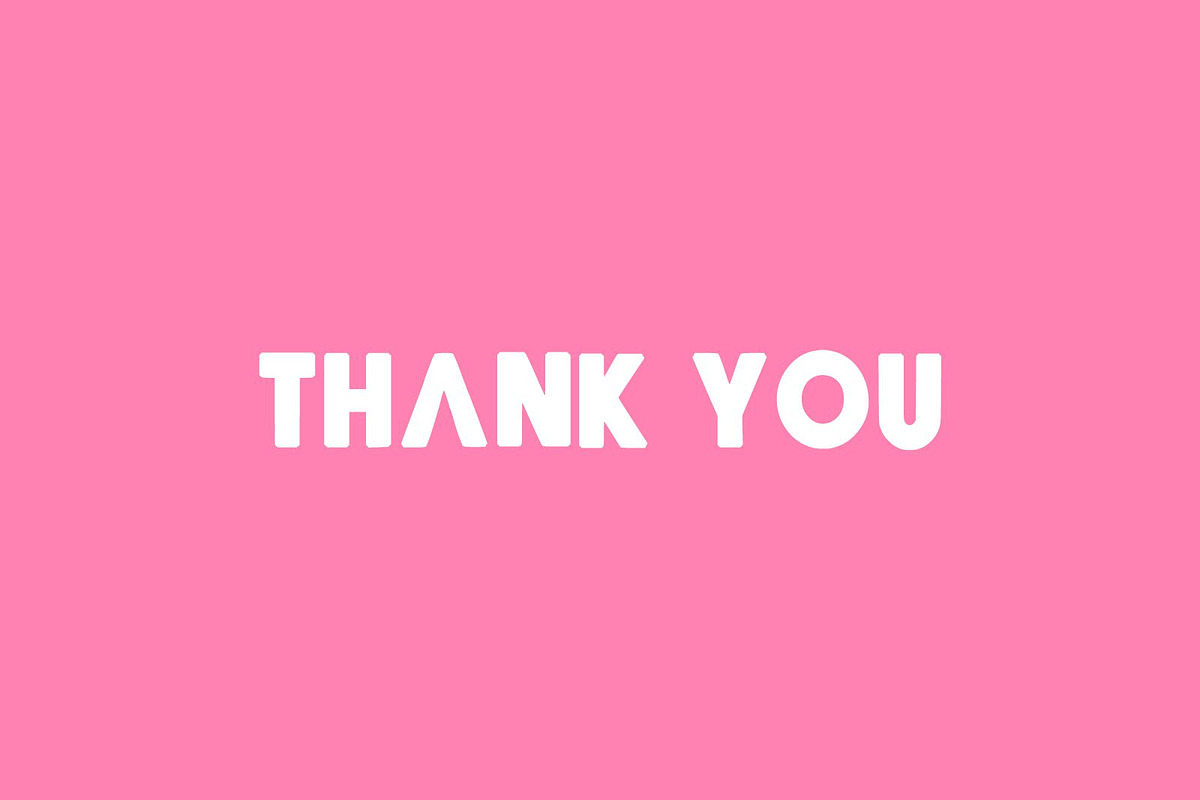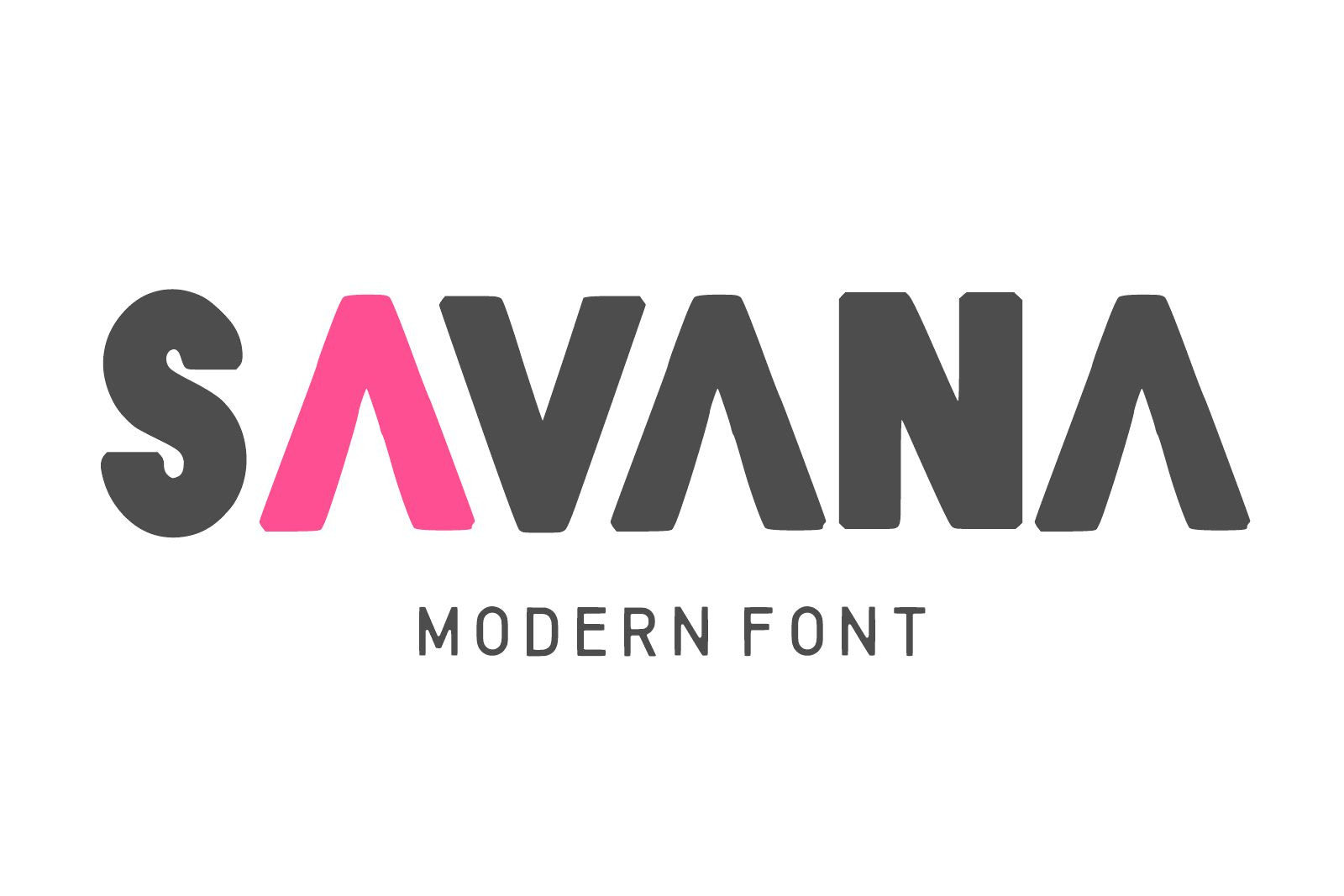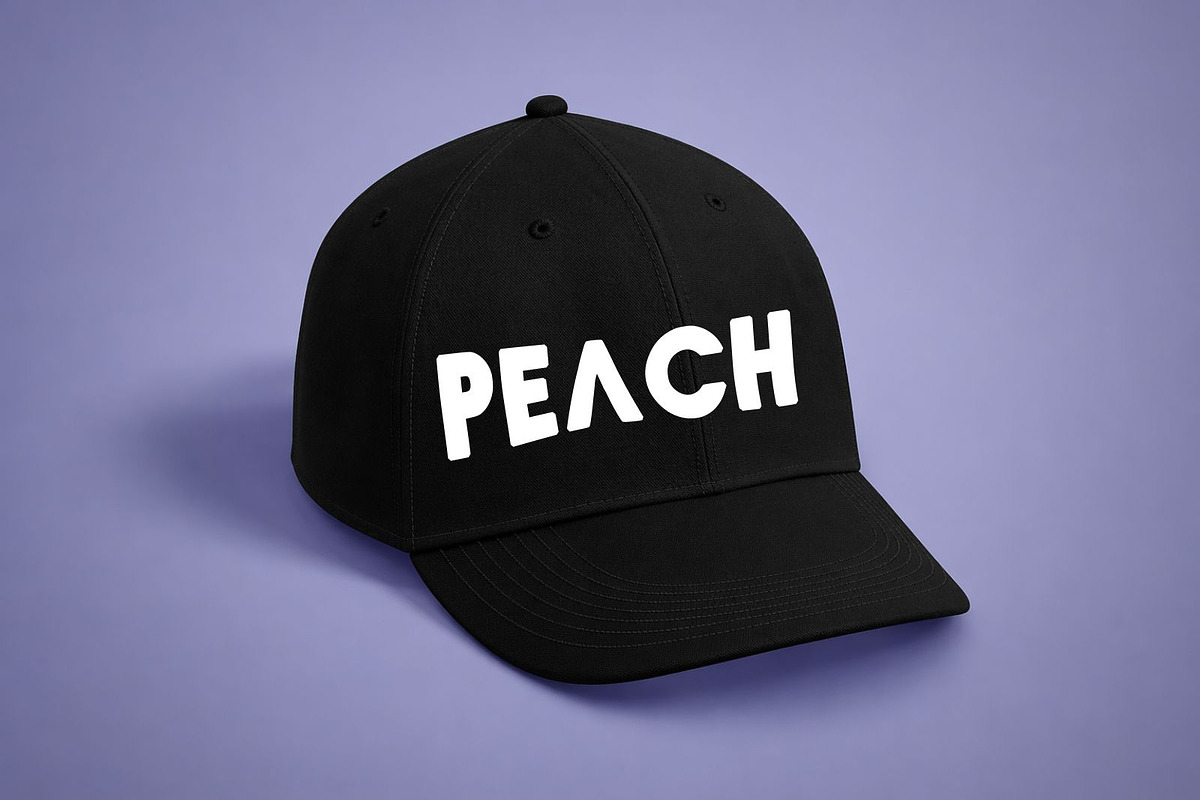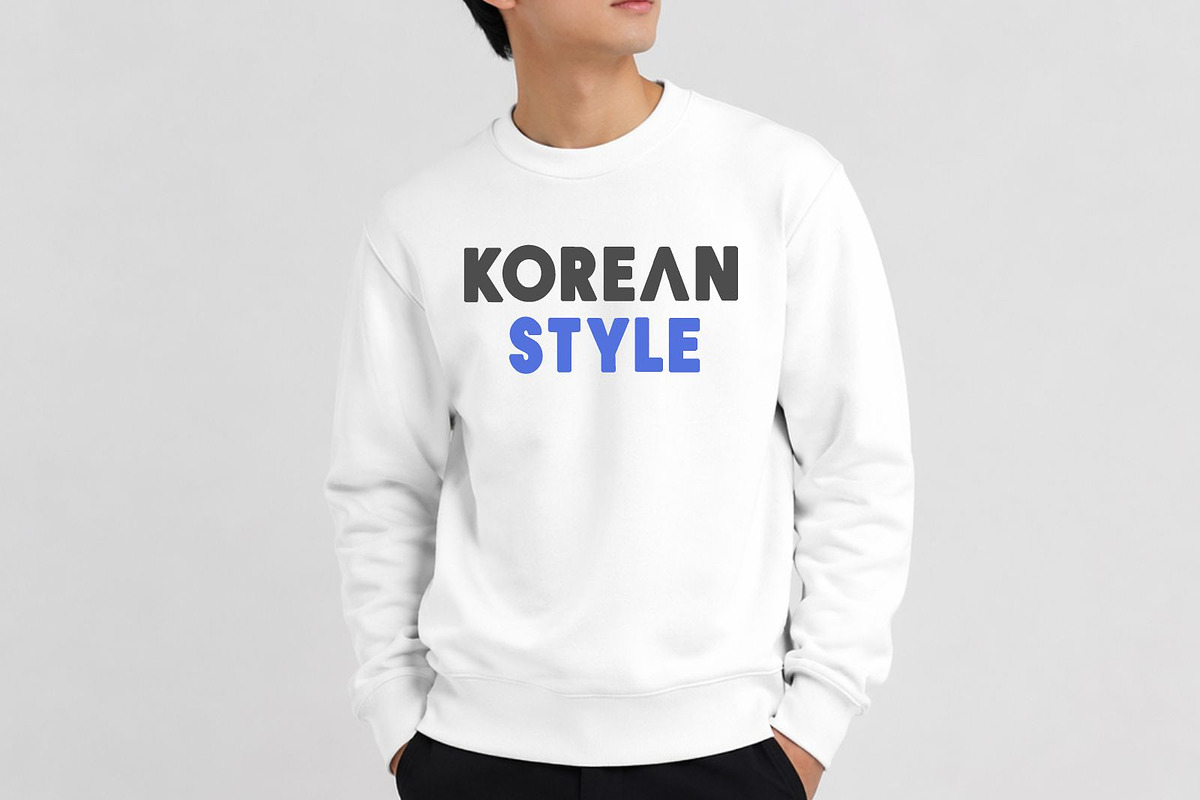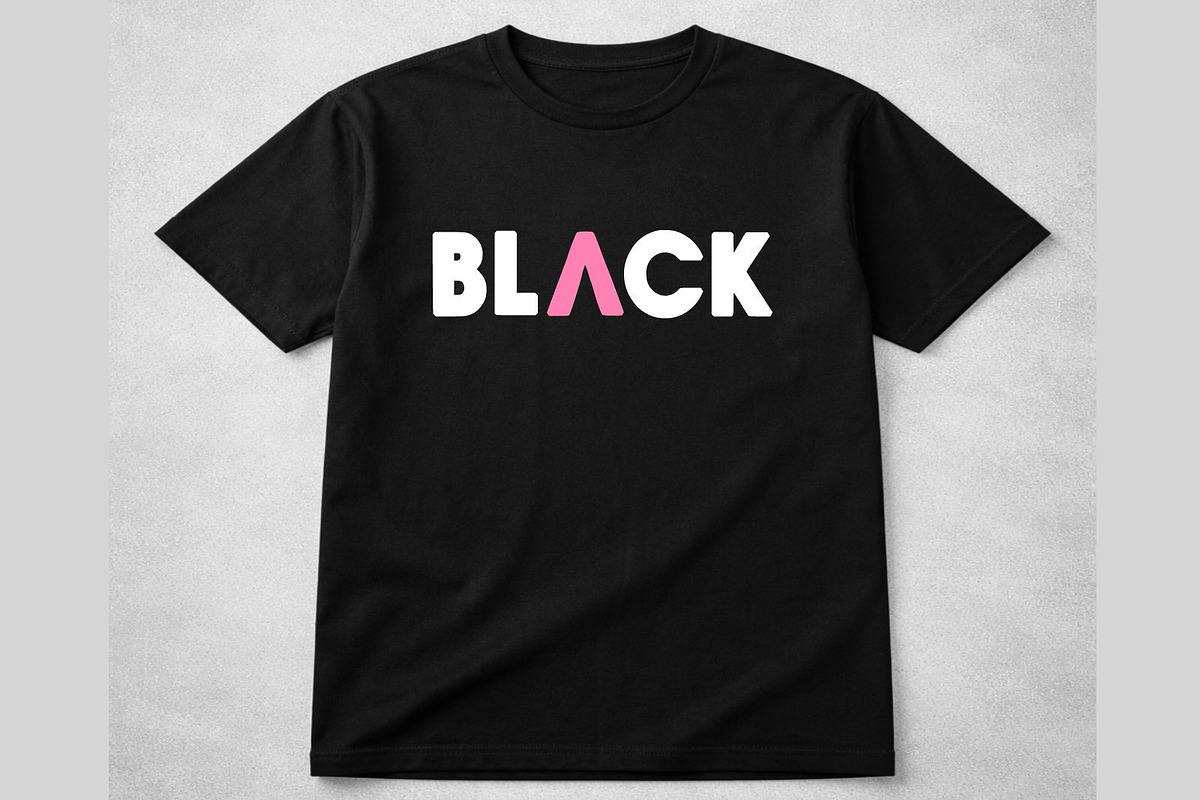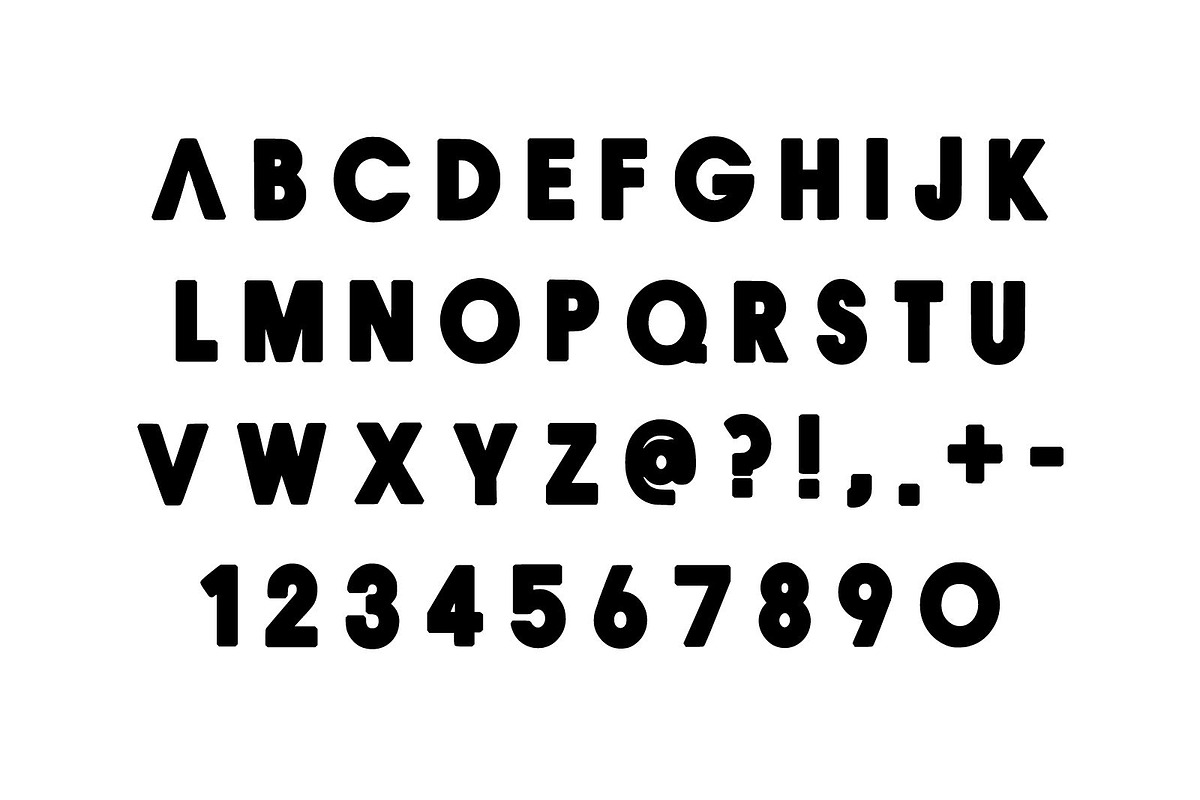
Savana Modern Font
Savana Modern Font is a clean and stylish modern display typeface with bold geometric letterforms and a minimalist aesthetic. Perfect for branding, logos, posters, fashion designs, social media graphics, packaging, headlines, and contemporary creative projects. Its sleek and elegant appearance makes it ideal for both professional and trendy designs, delivering a modern visual impact with strong readability.